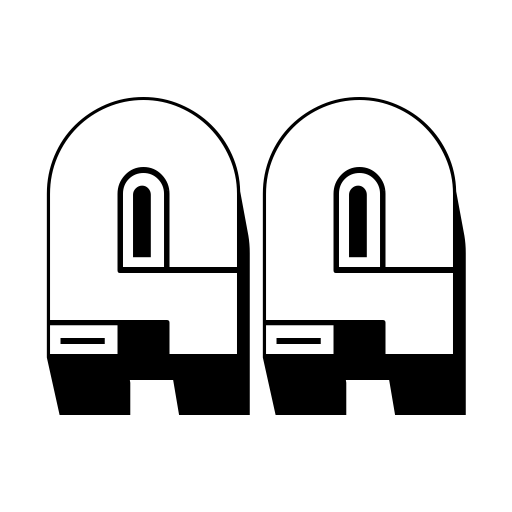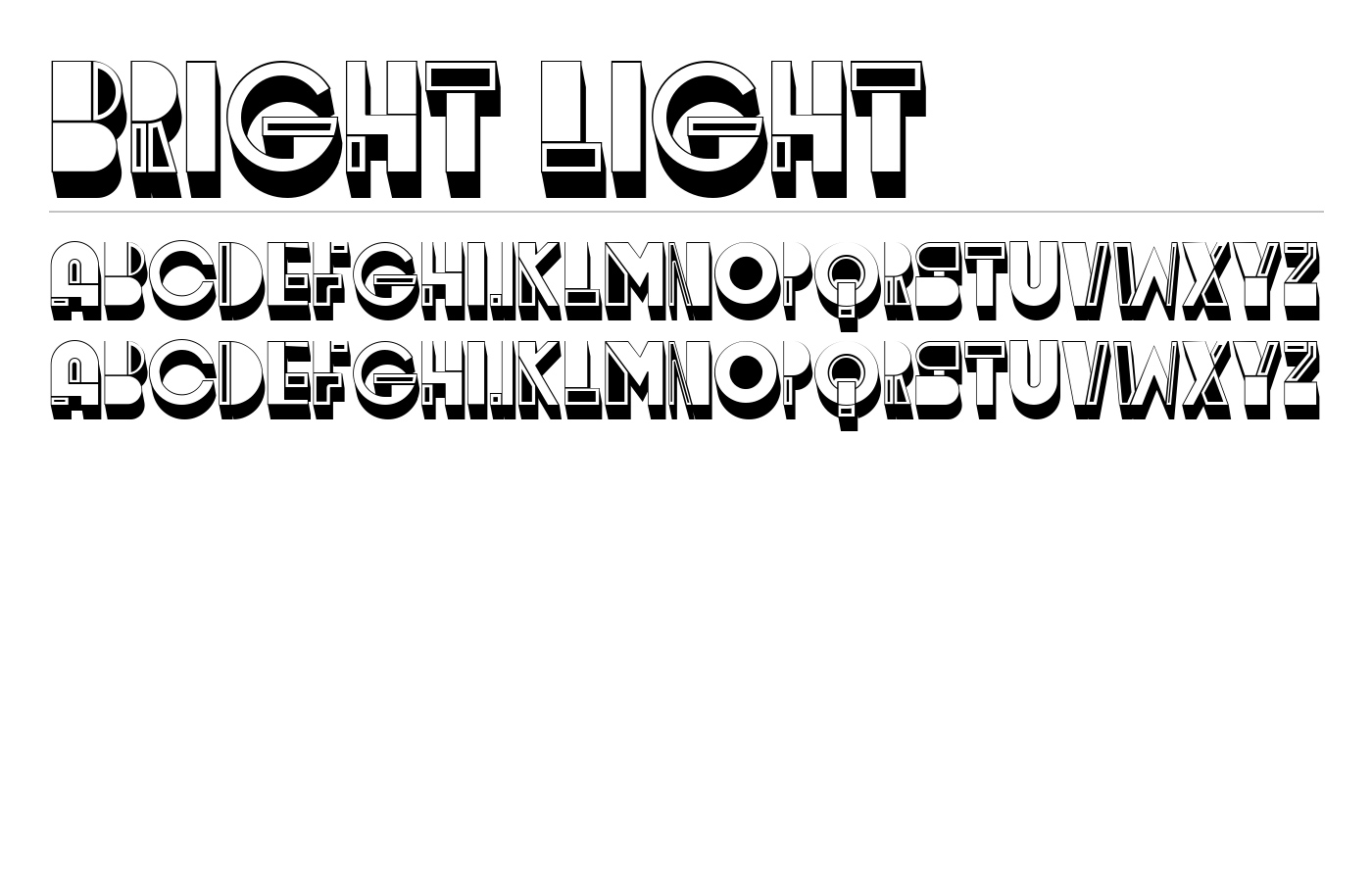
Bright Light is a bold, modern sans serif display font with a distinctive three-dimensional shadow effect that creates a striking visual depth. Its geometric and clean letterforms combined with the playful, layered shadow make it ideal for eye-catching headlines, posters, and branding that seek a dynamic and energetic vibe. This font works best where impact and style are key, lending a stylish, contemporary personality to creative projects.
Bright Light Font
About Bright Light Font
| Font family | Bright Light Font |